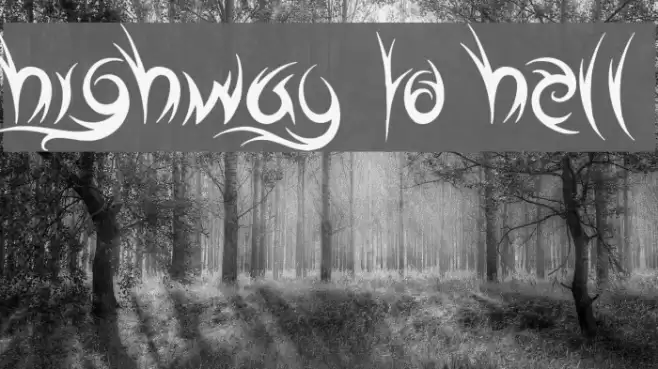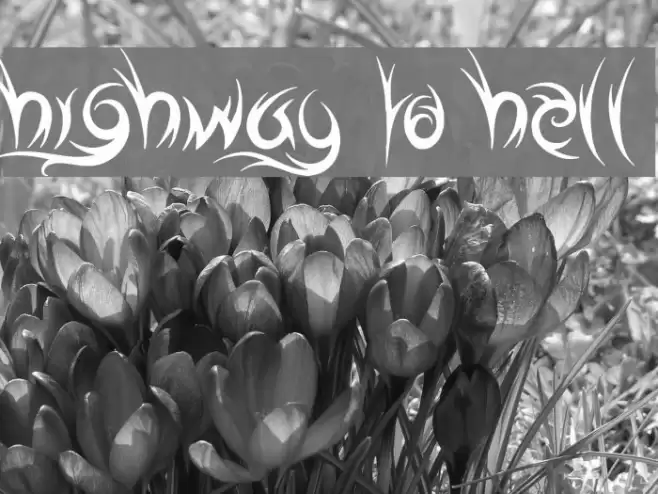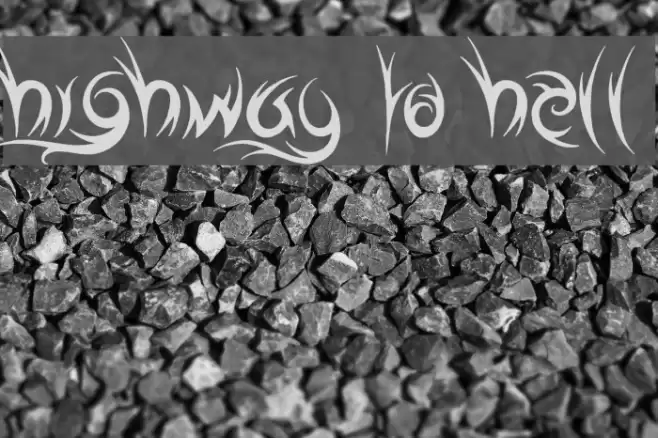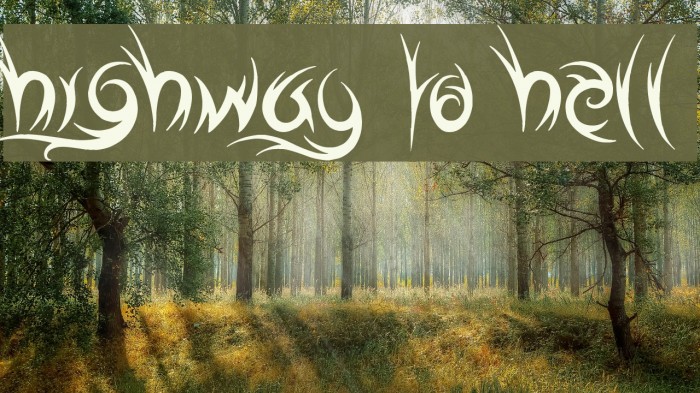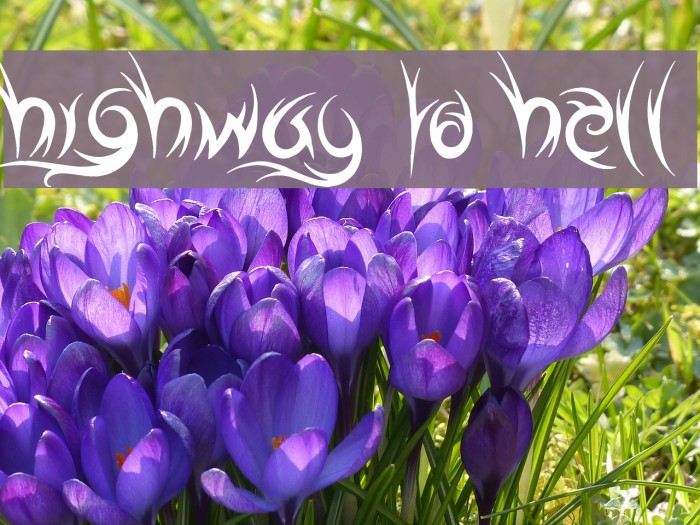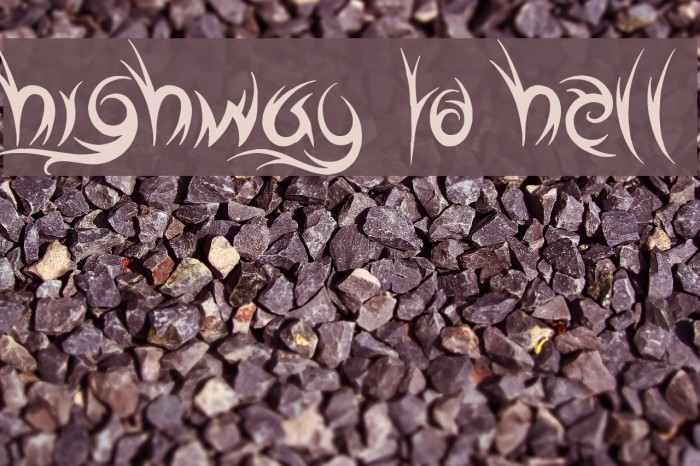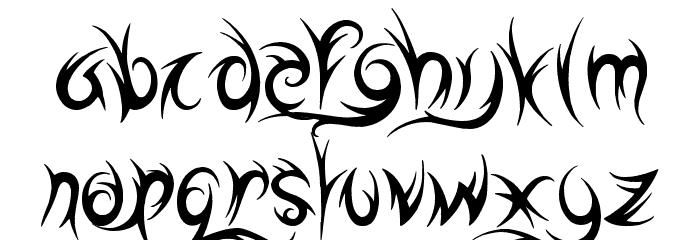
Highway to Hell Font
Highway to Hell Description
This font features a bold and dynamic design with sharp, angular strokes that create a sense of movement and energy. The characters are highly stylized, with intricate curves and pointed edges that give it a tribal or tattoo-like appearance. The uppercase and lowercase letters maintain a consistent style, while the numerals and special characters complement the overall aesthetic. The font's unique design makes it stand out, suitable for projects that require a strong visual impact.
A bold, tribal-inspired font with sharp, angular strokes and intricate curves from Uncategorized fonts.
- Proposed Projects: Ideal for tattoo designs, music album covers, posters, and branding that requires a bold and edgy look.